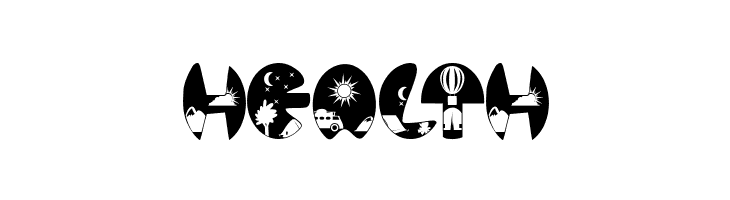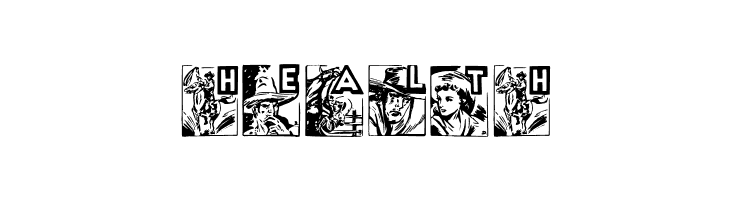
A bold, distressed font with a gritty, punk rock aesthetic.
A display font using iconic musician imagery for each character.
A decorative font with camping-themed illustrations embedded in each character.
Minimalist boho nature line art in decorative frames.
A decorative font with comic book-style illustrations within each character.